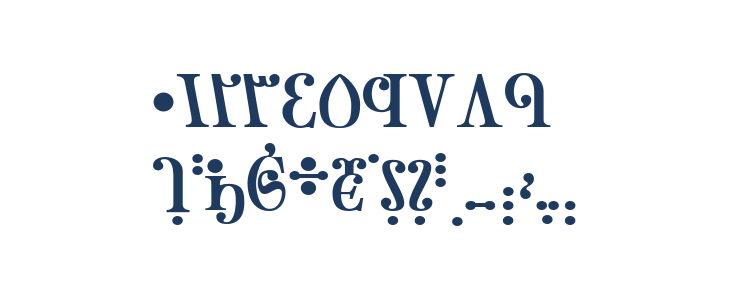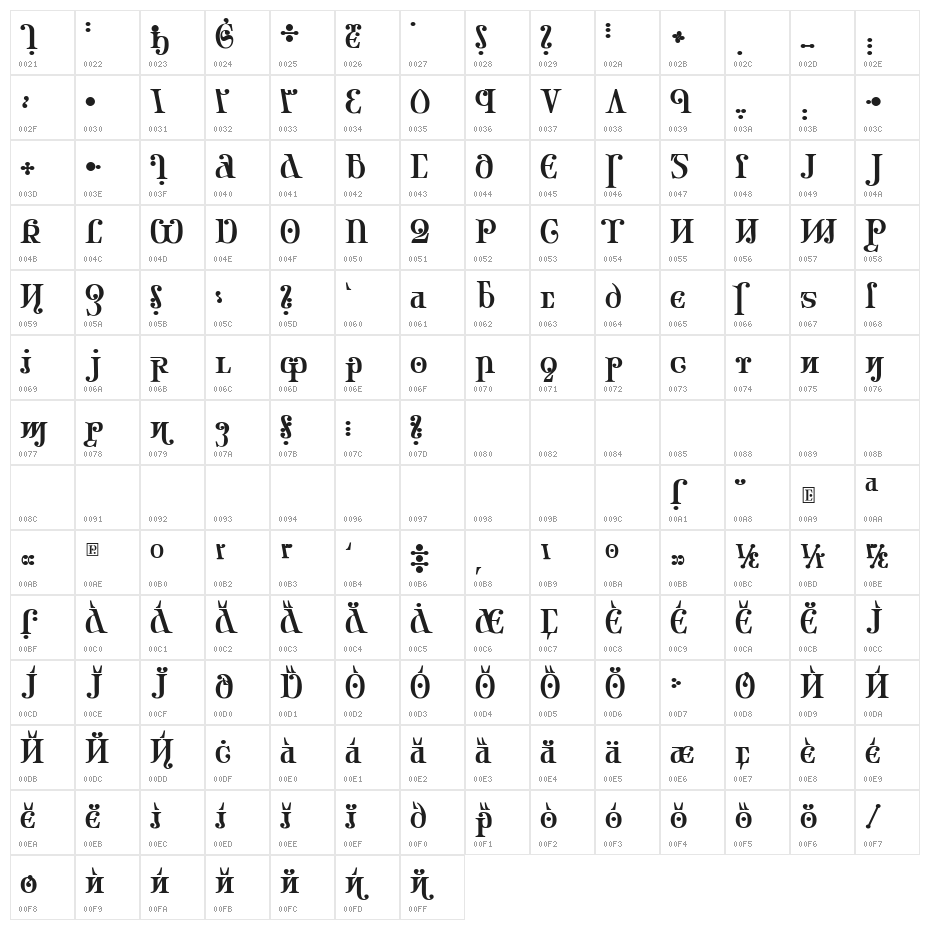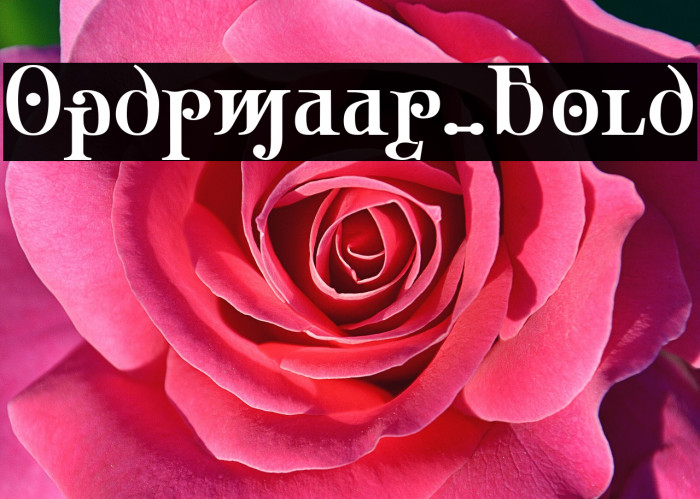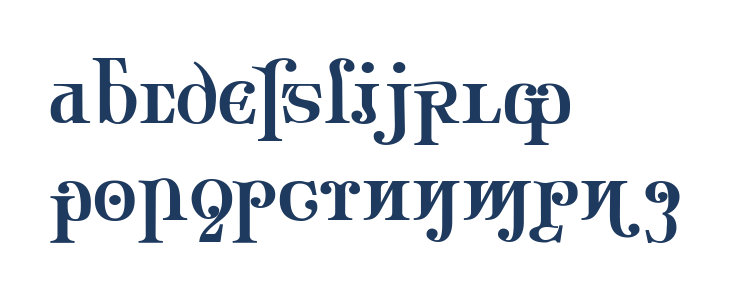
Ondrwaax-Bold Font
Ondrwaax-Bold Description
This font features a bold and decorative style with unique, artistic curves and flourishes. The characters are highly stylized, with an emphasis on symmetry and balance, creating a visually striking appearance. The uppercase letters have a strong presence, while the lowercase letters maintain a consistent flow. The numbers and special characters are equally ornate, adding to the overall aesthetic. This font is designed to capture attention and convey a sense of creativity and elegance.